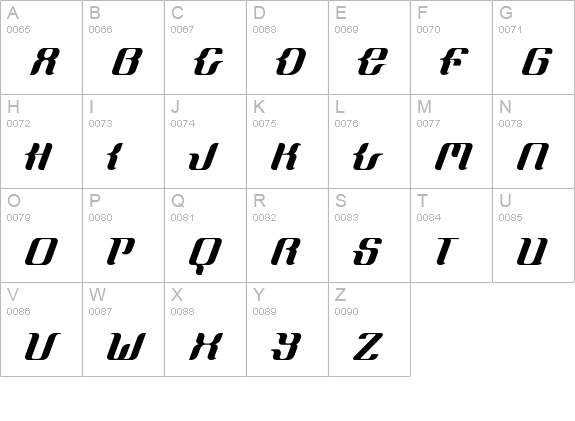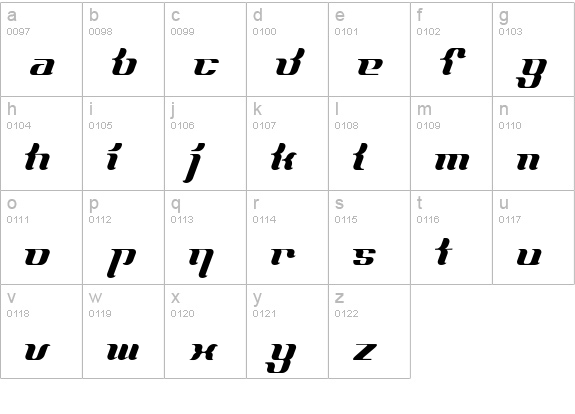
FrenchCurve ALP Font Details
FrenchCurve ALP font is a sophisticated and elegant typeface that exudes a sense of refinement and creativity. Its unique curves and flowing lines give it a distinct aesthetic appeal that is perfect for adding a touch of class to your design projects. Whether you are working on a branding project, invitation, or any other creative endeavor, FrenchCurve ALP font will surely make a lasting impression. What makes FrenchCurve ALP font even more special is that it is available for free download at FontsMarket.com. This means that you can easily access this stunning font and use it in your projects without any cost. Don't miss out on the opportunity to enhance your designs with the beauty and style of FrenchCurve ALP font. Download it now and let your creativity soar!